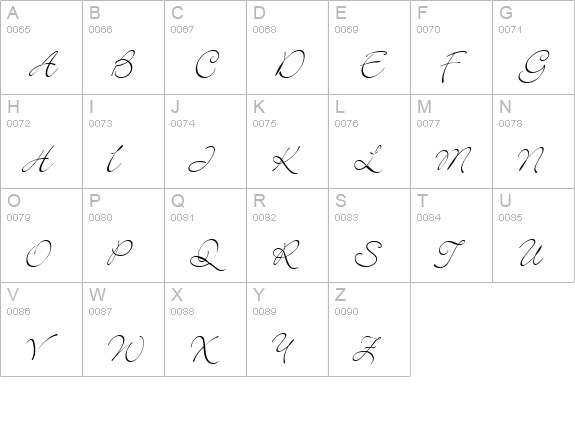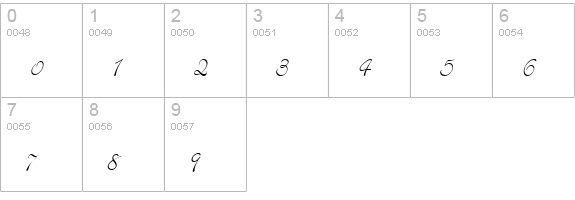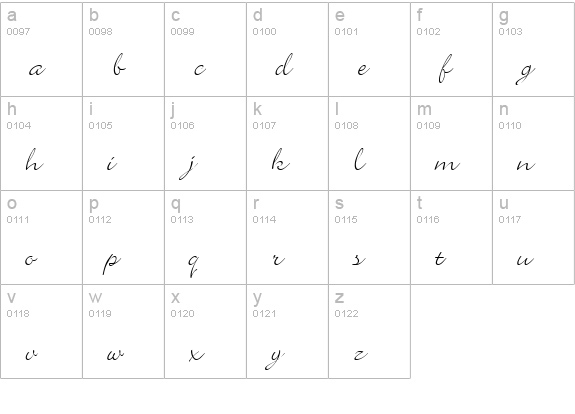
Kolibri Font Details
Introducing Kolibri font, a modern and elegant typeface that will bring a touch of sophistication to your designs. With its sleek lines and gentle curves, Kolibri is perfect for creating eye-catching logos, branding materials, invitations, and more. The best part? Kolibri font is completely free to download at FontsMarket.com. That's right, you can add this versatile font to your collection at no cost, making it a valuable resource for both personal and commercial projects. Don't miss out on the opportunity to enhance your designs with the beauty and versatility of Kolibri font. Download it today and elevate your creative projects to new heights!